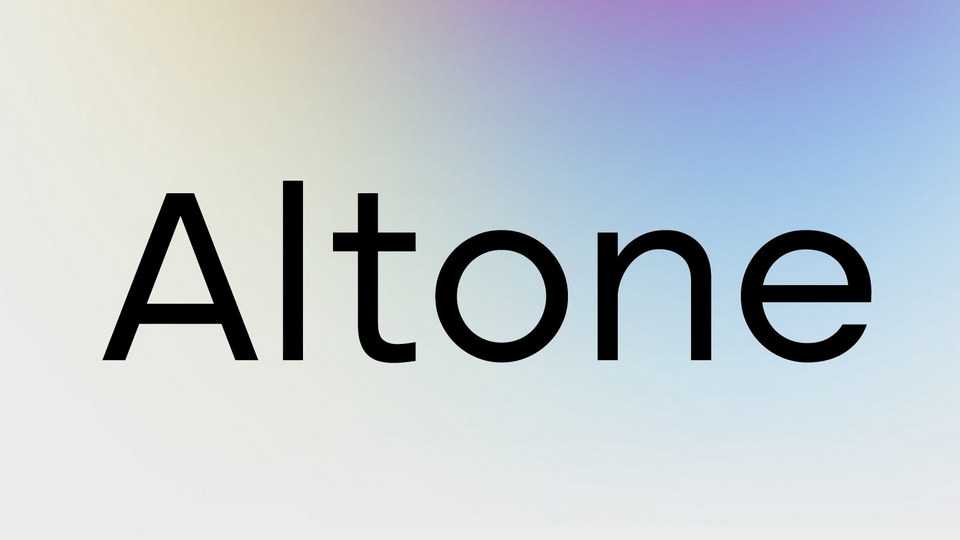
Download Altone font, a typeface created in a pursue of regularity and conventional geometric sans serif typeface which tend to be easy to receive by it’s reader. Altone has broad usage possibility, shown a simple, bold and strong personality.